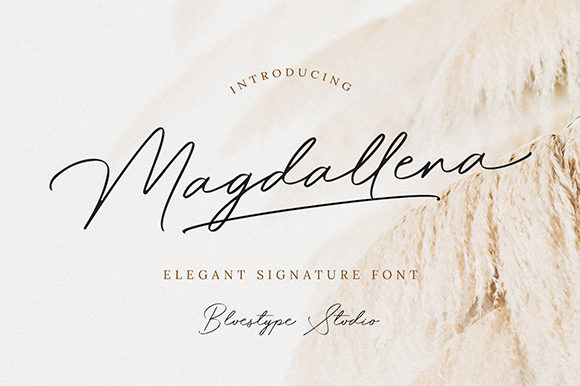
Step into a realm of sophistication and beauty with Magdallena, a script font that exudes elegance and allure. Its graceful curves and delicate strokes create a visual symphony, transforming your designs into breathtaking works of art. Whether it's a captivating wedding invitation, a heartfelt love letter, or a stunning logo, Magdallena adds a touch of enchantment to every project.
Unleash your creativity and let your imagination soar as you explore the endless possibilities of Magdallena. Its versatility knows no bounds, effortlessly adapting to a myriad of styles and themes. From classic and timeless to modern and whimsical, Magdallena seamlessly blends with your vision, enhancing it with an air of sophistication and charm.
With Magdallena, you'll discover a font that speaks to the heart and captivates the senses. Its enchanting characters dance across the page, leaving a trail of elegance and beauty in their wake. Prepare to be smitten by its charm as you witness the transformation of your designs into masterpieces that leave a lasting impression.